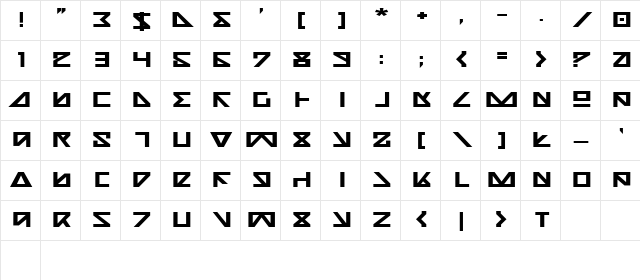
Nick Turbo Bold Expanded Free Font
Nick Turbo Bold Expanded Bold Expanded
Style: Bold Expanded
Nick Turbo Bold Expanded Family
Design Context for Nick Turbo Bold Expanded
Nick Turbo Bold Expanded is a composed and adaptable typeface that performs quietly and consistently across a wide range of design contexts. Its bold stroke weight gives it real presence on the page.